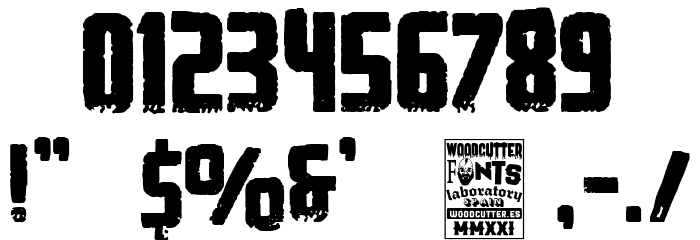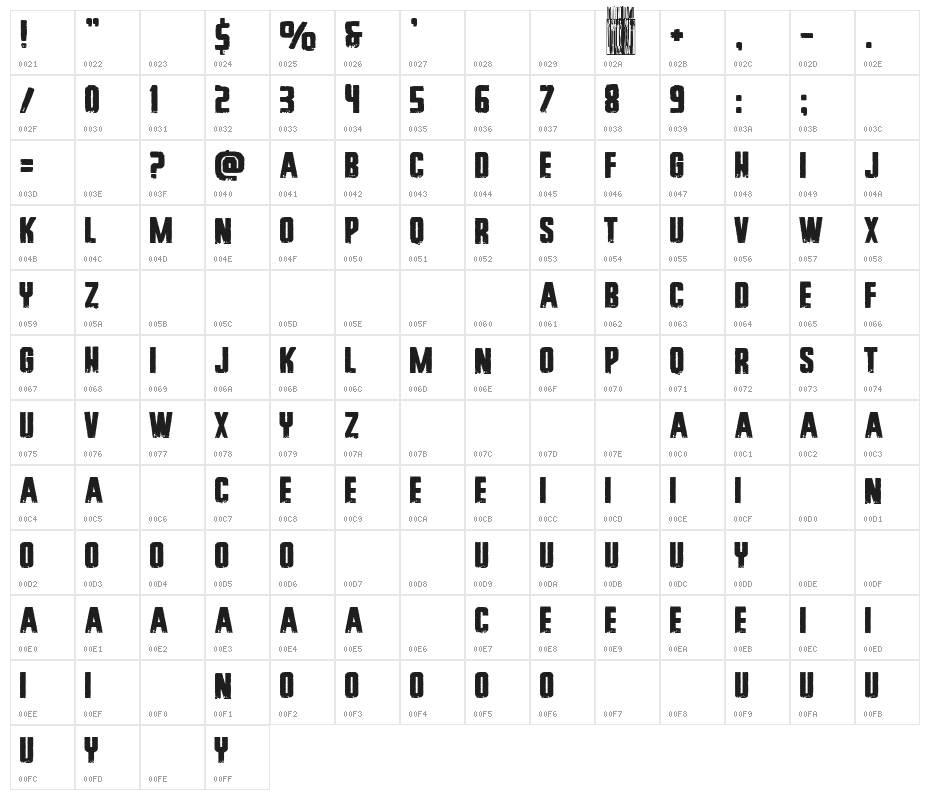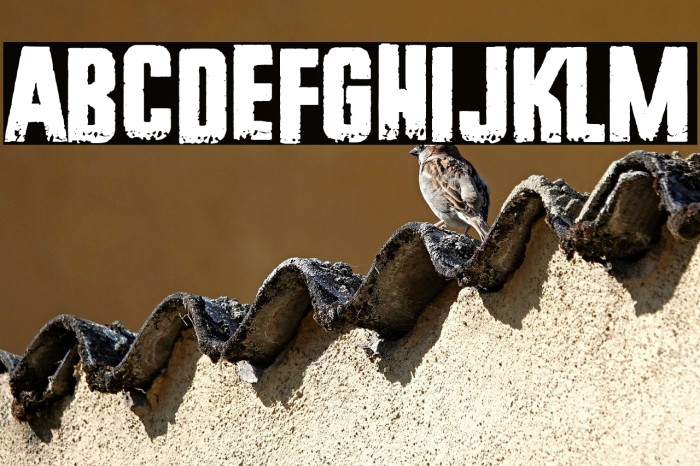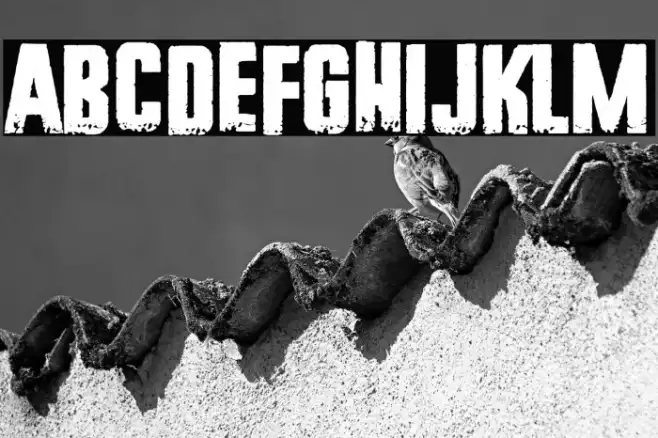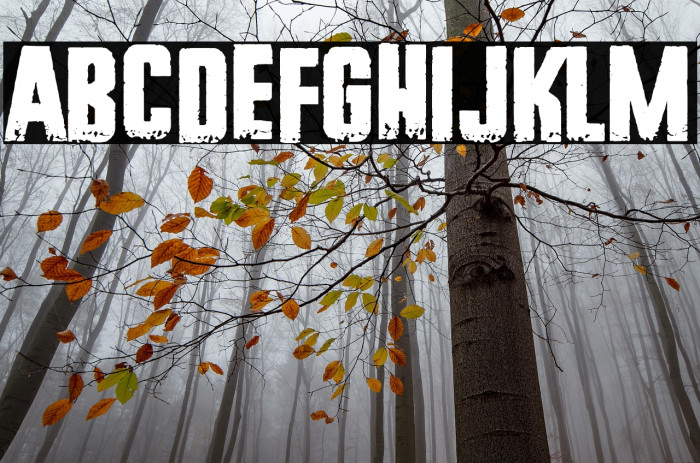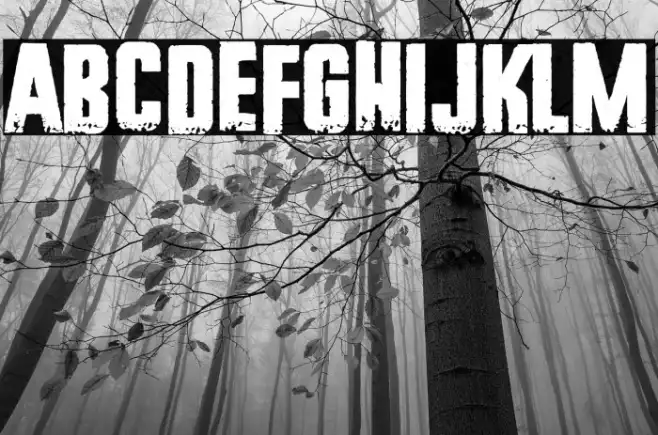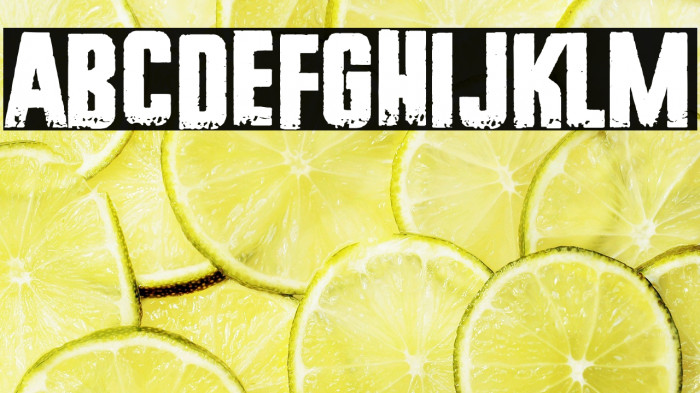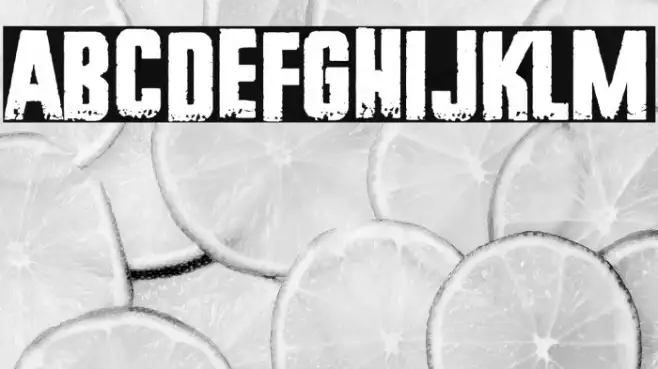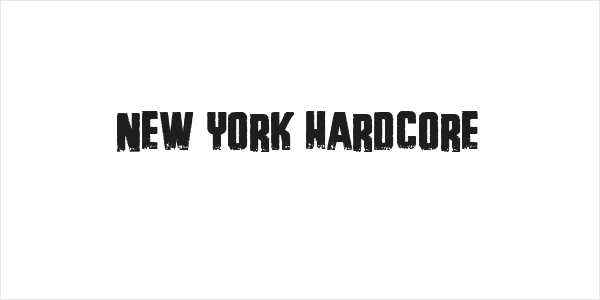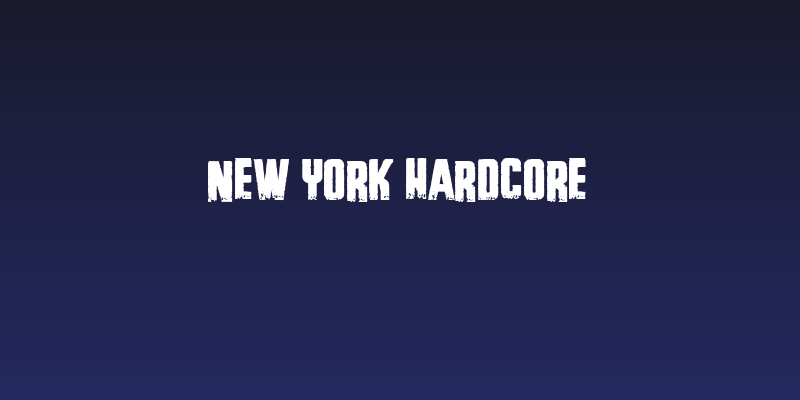
New York Hardcore Font
New York Hardcore Description
This font exudes a gritty, urban vibe with its bold, distressed appearance. The characters are heavily textured, giving them a rugged, worn-out look that suggests a sense of rebellion and toughness. The uppercase letters are prominent and commanding, while the numbers and special characters maintain the same boldness and texture. This style is reminiscent of street art or graffiti, making it ideal for projects that require a raw, edgy aesthetic. The font's rough edges and uneven strokes add to its dynamic and energetic feel, making it stand out in any design.
| Overall Style | Urban, Edgy, Rebellious |
| Use Case | Logos, Posters, Headlines |
| Proposed Projects | Ideal for music album covers, streetwear branding, event posters, or any project needing an edgy, rebellious look. |